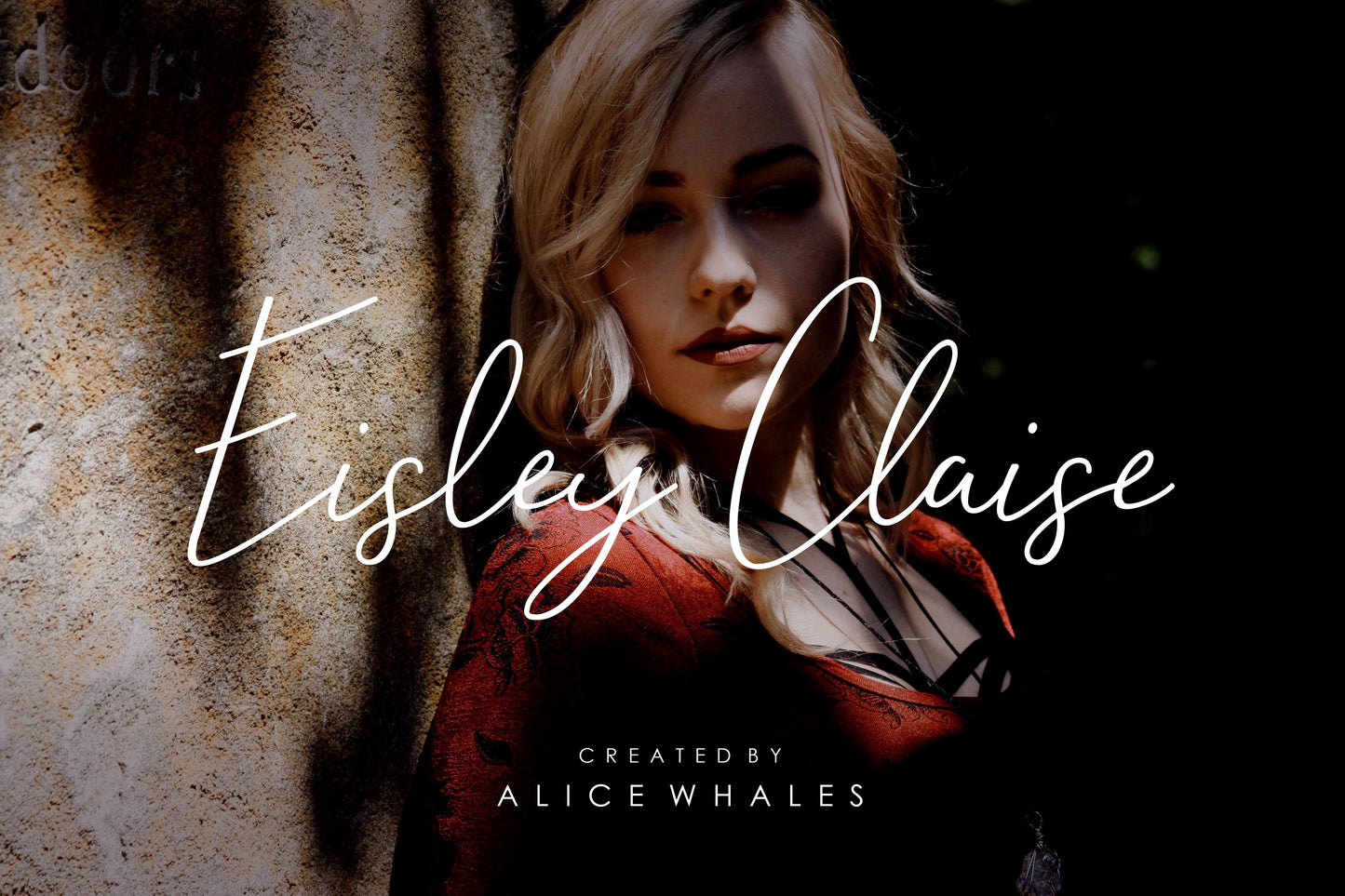
Free Eisley Claise Handwriting Script Font
Featuring a free eisley claise – handwriting script font. This free typeface file was found from the amazing source called Pixelify. Showcase your designs like a graphic design pro by adding a new touch with this cool font.